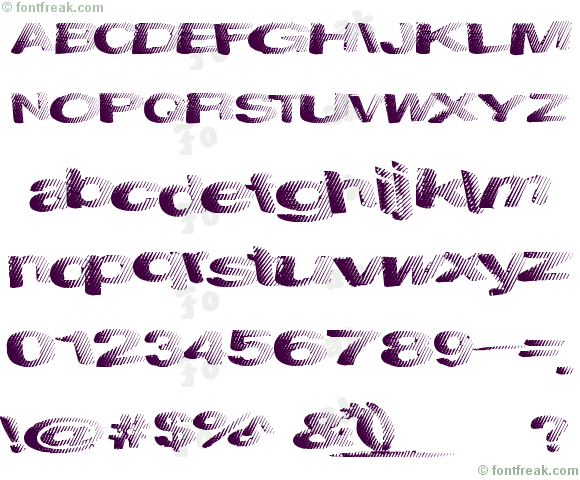
SolidWaste
The SolidWaste font by Xerographer Fonts is a unique display typeface that captures attention with its distinctive aesthetic. Released in 2014, this freeware font combines playful elements with a somewhat rugged charm, making it perfect for a variety of creative projects. The visual characteristics of SolidWaste feature a medium stroke weight with a textured appearance, characterized by streaks and patterns that create an engaging sense of depth. The spacing is balanced, allowing for readability while still maintaining its bold character. This font’s design is ideal for those looking to infuse a touch of whimsy into their work.
SolidWaste excels in specific use cases, making it a versatile choice for graphic designers and content creators alike. It is particularly well-suited for eye-catching movie posters, where its unique style can draw viewers in. Additionally, it can enhance restaurant menus, providing a fun and approachable feel that complements casual dining experiences. Wedding invitations are another excellent application, as the font adds a contemporary twist to traditional designs. Furthermore, it works well for promotional materials, such as flyers or social media graphics, where a bold statement is desired.
The target audience for SolidWaste includes graphic designers, small business owners, and content creators who aim to stand out in a crowded marketplace. By choosing this font, they can convey a sense of creativity and uniqueness that resonates with their brand identity.
In conclusion, SolidWaste font free download offers a refreshing alternative to conventional typefaces. Its combination of playful design and practicality allows it to shine in various applications, making it a standout choice for anyone seeking to elevate their projects with a bold and original typographic style.